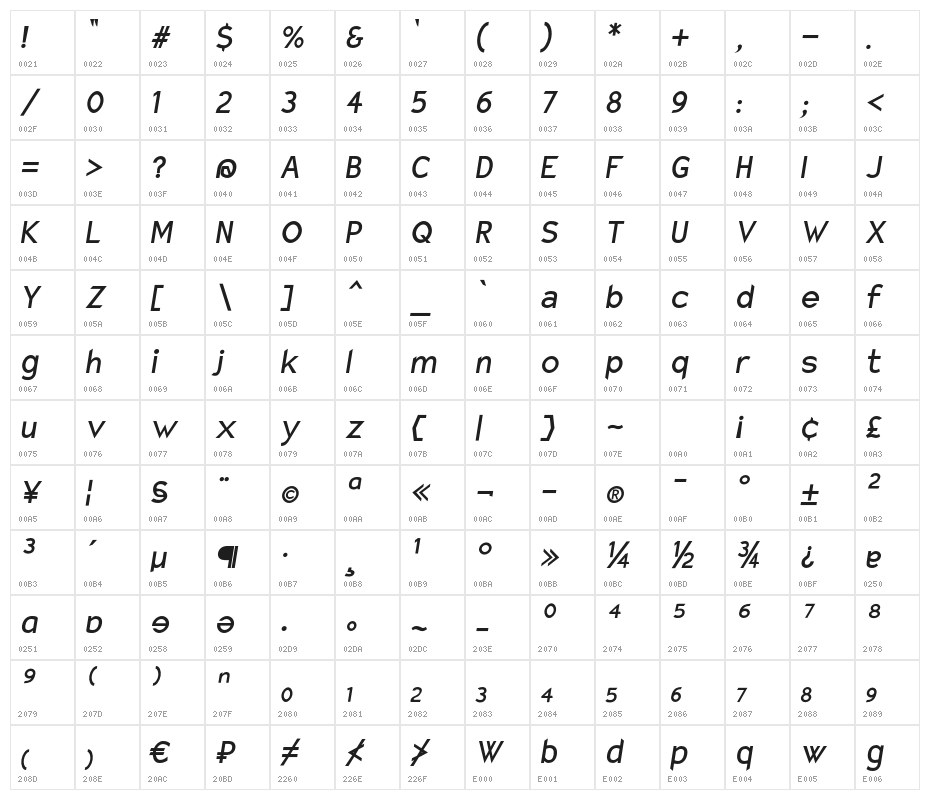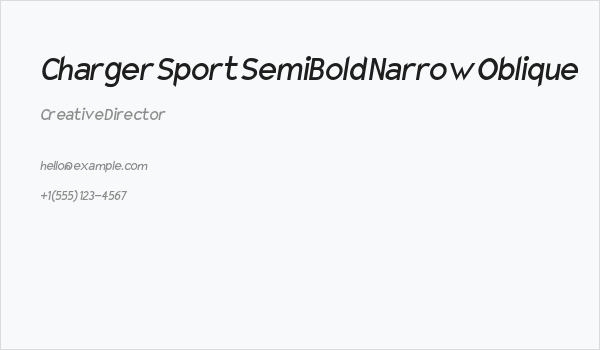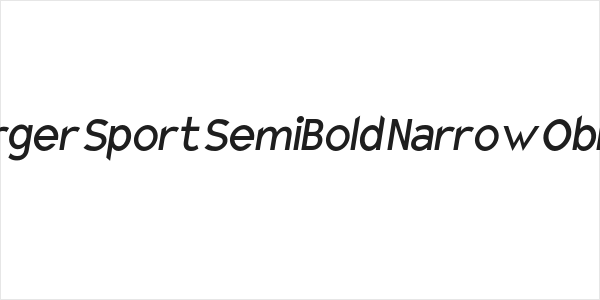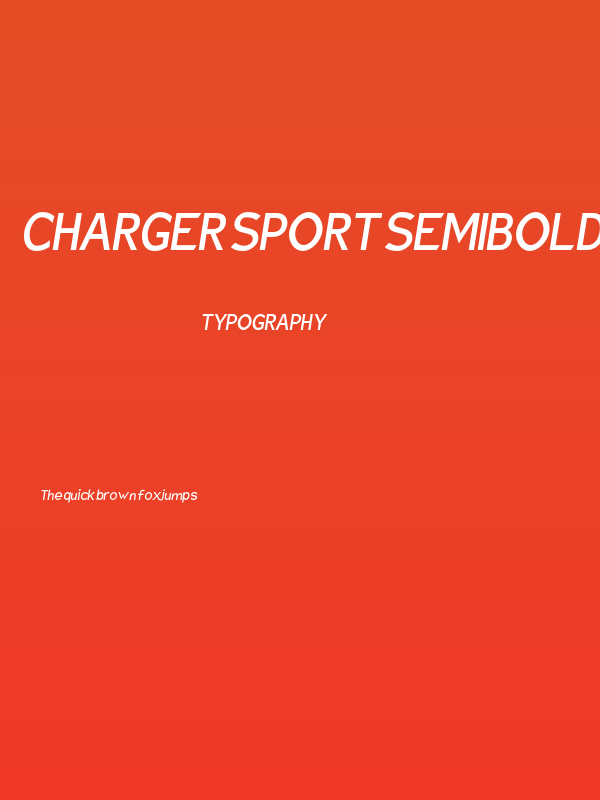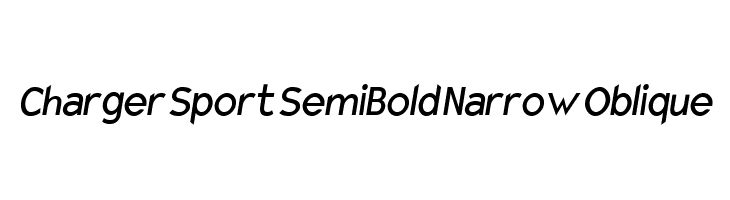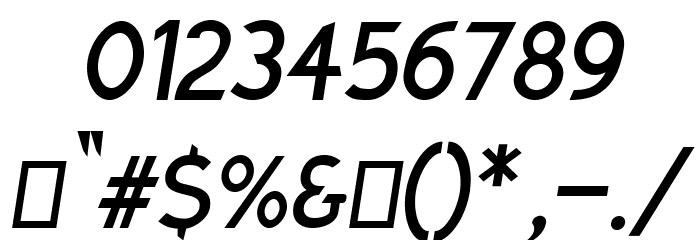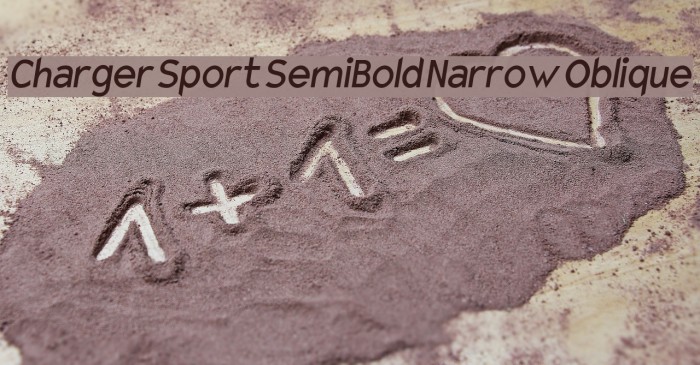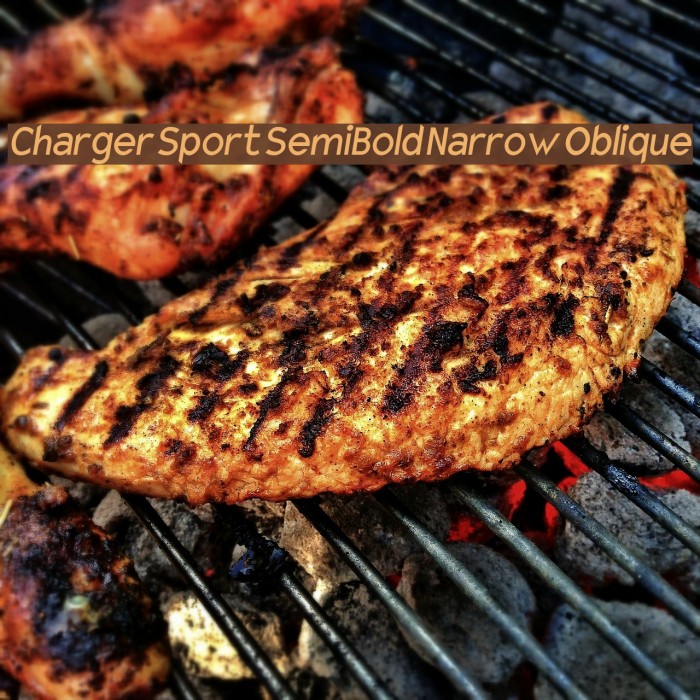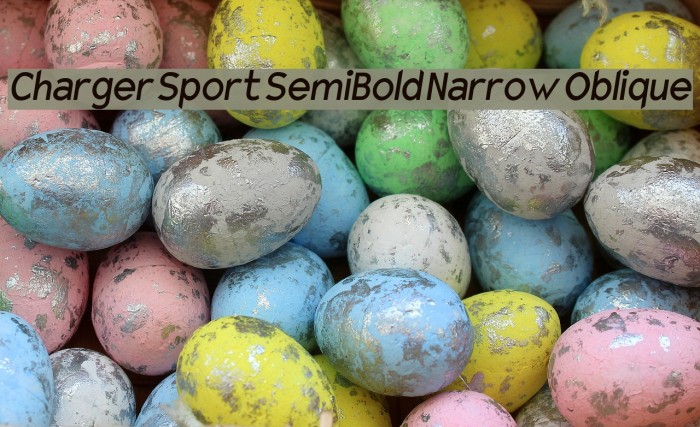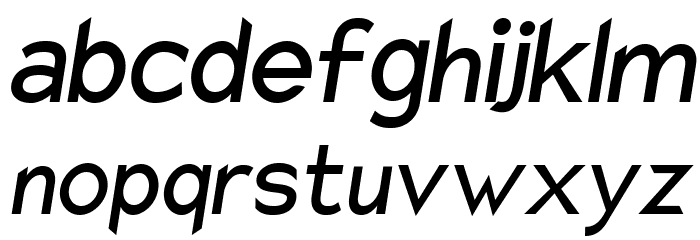
Charger Sport SemiBold Narrow Oblique Font
Charger Sport SemiBold Narrow Oblique Description
This font exhibits a dynamic and sporty aesthetic, characterized by its semi-bold weight and narrow width. The oblique style adds a sense of motion and energy, making it ideal for projects that require a modern and sleek appearance. The uppercase and lowercase letters are well-proportioned, with a slight slant that enhances its contemporary feel. The numerals are clear and distinct, maintaining the font's overall streamlined look. Special characters are included, ensuring versatility in various design applications. The font's clean lines and smooth curves contribute to its legibility, even at smaller sizes.
| Use Case | Headlines, Logos, Advertising |
| Proposed Projects | Ideal for sports branding, dynamic posters, modern websites, and energetic advertising campaigns. |